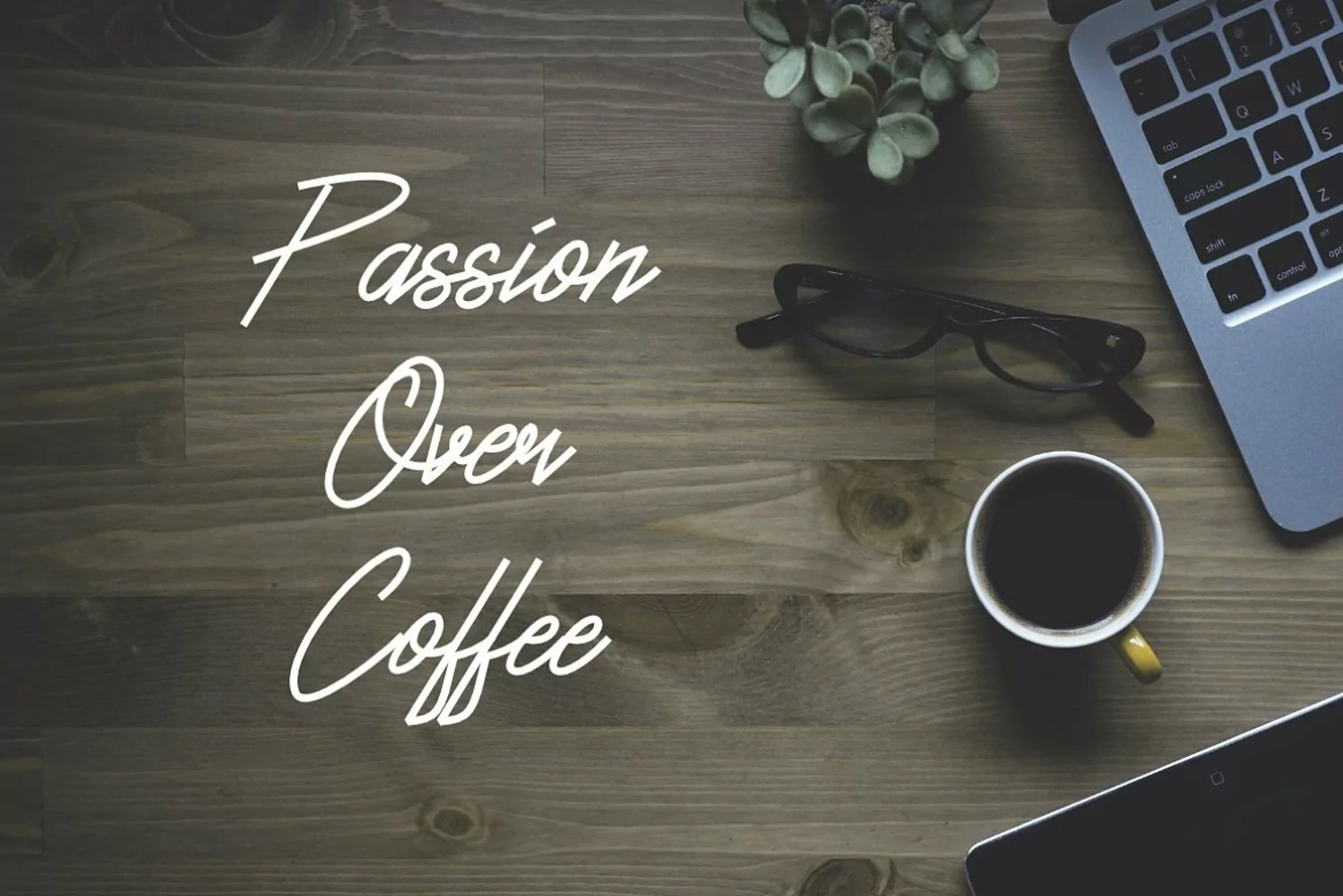
The Fallen Font
Simple font , suitable for many project , quotes, logo , doodle, heading , title etc.
Basic Latin (Standard English character , number, punctuation)